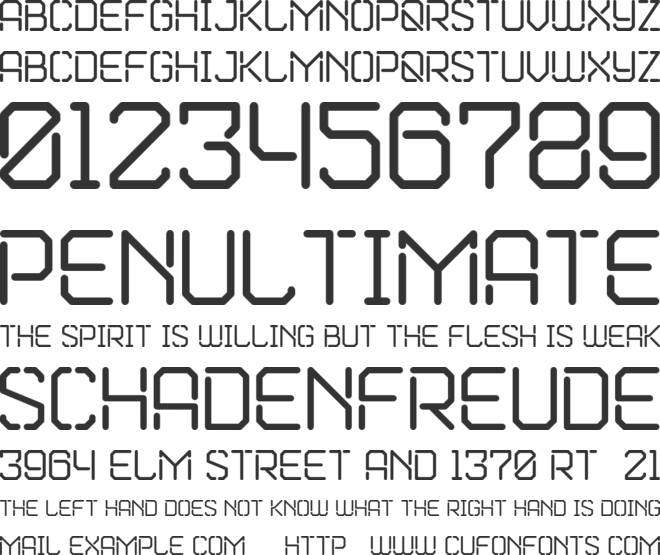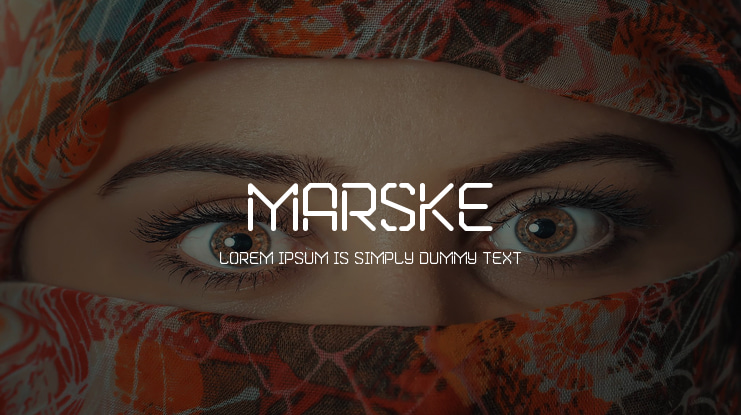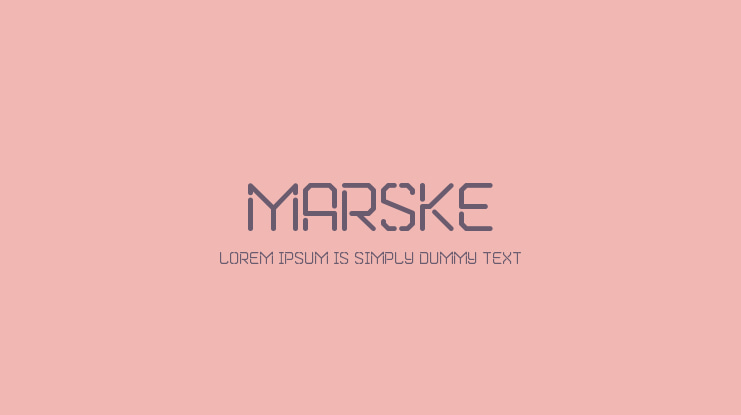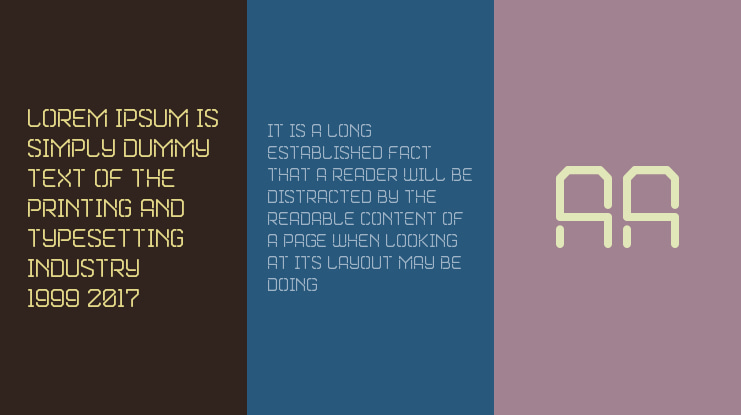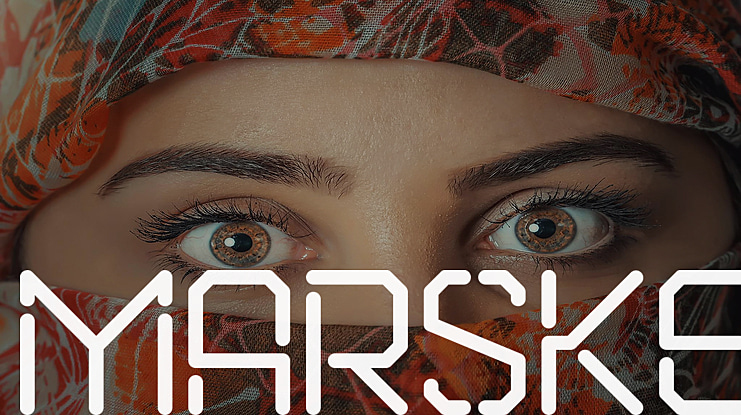
Marske Font
Marske is an all caps free stencil display font. The original font and style was designed by Kash Singh and Sergiy Tkachenko created the Russian, Ukrainian and Belarusian Cyrillic style. This font is free to download and use. If you do use the font in any of your projects we would love to see how you guys use them.